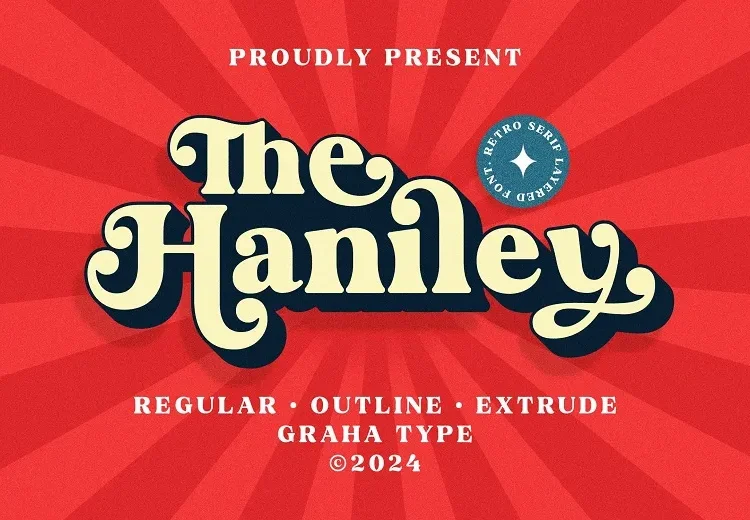
The Haniley Font
The Haniley is a sophisticated serif font that seamlessly blends modern design elements with a retro aesthetic, making it a versatile choice for a wide range of creative projects. With its distinct style and timeless appeal, The Haniley stands out as an ideal typeface for designers looking to add a touch of elegance and nostalgia to their work.
Key Features of The Haniley Font:
• Retro Style Feel: The Haniley captures the charm of vintage typography while incorporating contemporary touches, resulting in a unique look that’s both classic and modern. This retro-inspired design makes it perfect for projects that aim to evoke a sense of nostalgia or timelessness.
• Versatile Application: Whether you’re working on logos, posters, branding, or merchandise, The Haniley adds a sophisticated flair to any design. Its versatility ensures that it can adapt to various contexts, making your work stand out with a refined and polished appearance.
• Sophisticated Appeal: The font’s well-crafted serifs and elegant letterforms give it a sophisticated and classic look. This makes The Haniley an excellent choice for projects that require a high-end, luxurious feel, such as upscale branding, fashion editorials, or premium product packaging.
Ideal Uses for The Haniley Font:
• Logos: The Haniley’s distinctive retro-modern style is perfect for creating memorable and impactful logos. Its unique design can help establish a brand identity that is both stylish and timeless.
• Posters: For poster designs that need to grab attention while maintaining an elegant look, The Haniley delivers. Its bold and retro-inspired letters make for eye-catching headlines and titles.
• Branding: In branding projects, The Haniley adds a touch of sophistication and class. Its versatility allows it to be used across different brand materials, ensuring a cohesive and polished brand image.
• Merchandise: The unique style of The Haniley makes it ideal for creating standout merchandise designs. Whether it’s apparel, accessories, or promotional items, this font adds a distinctive and stylish touch.